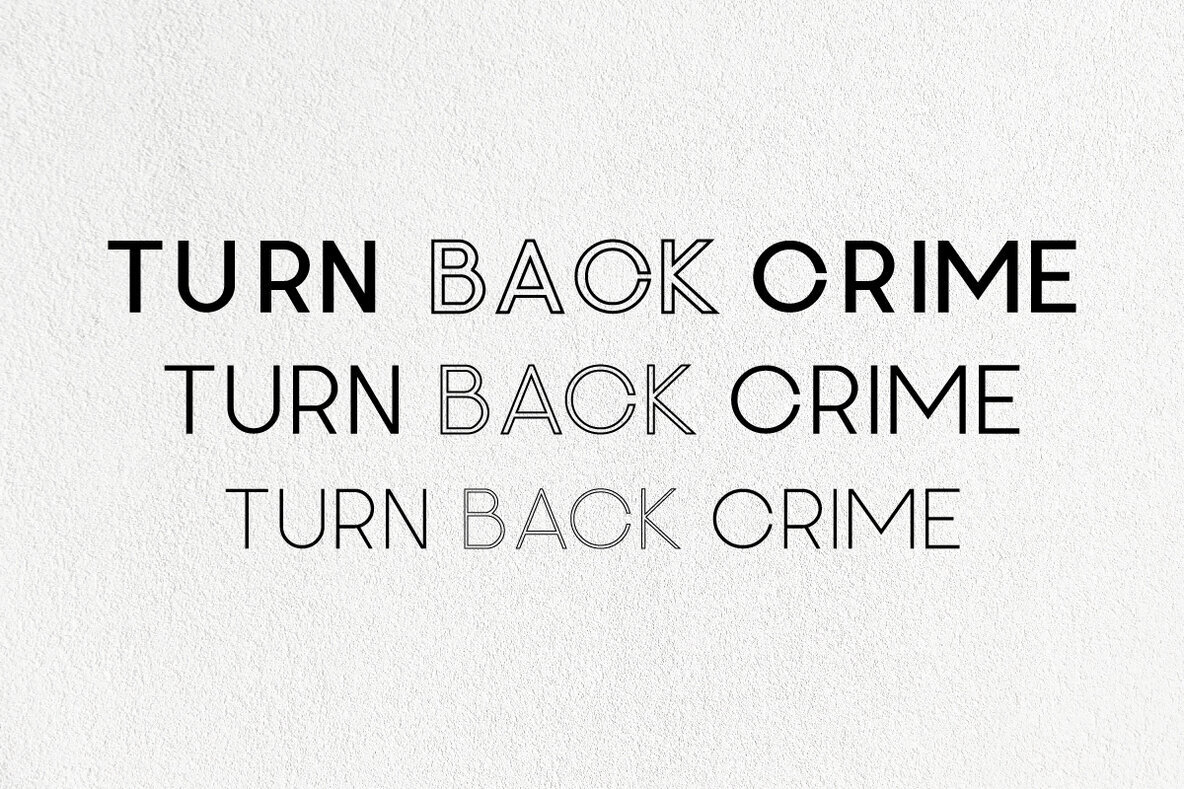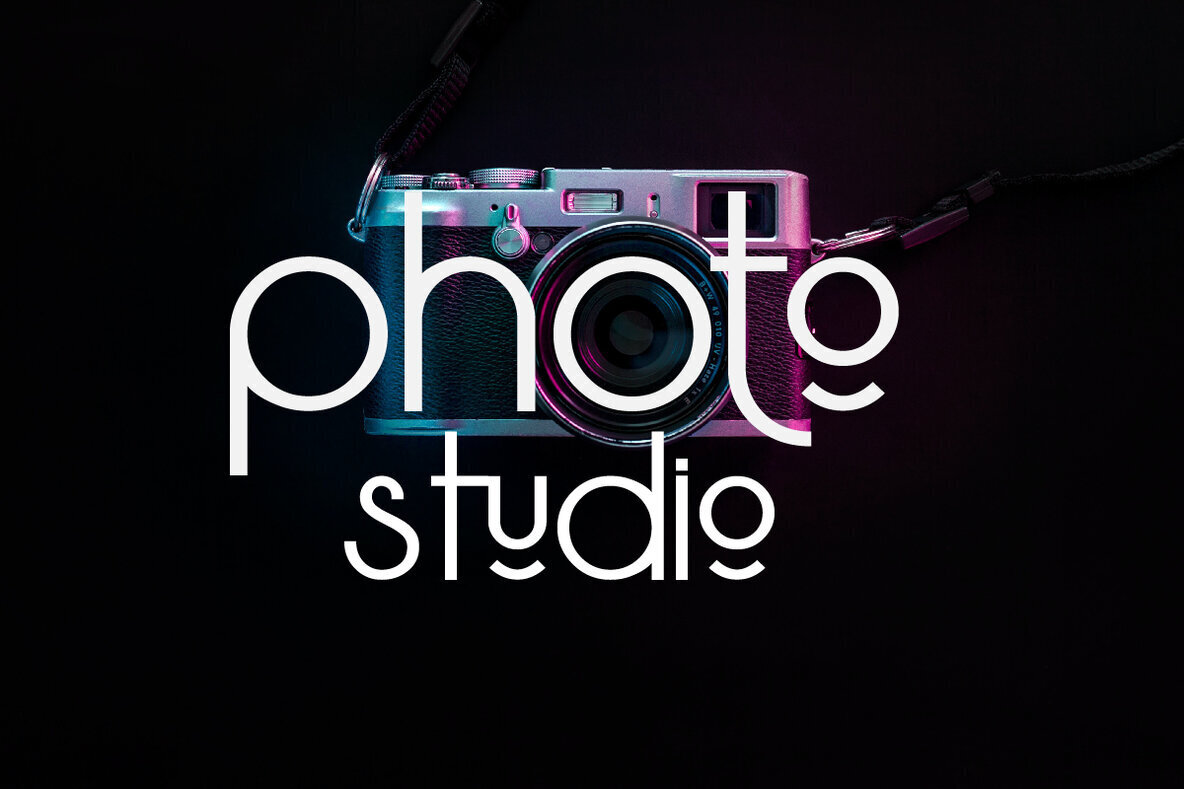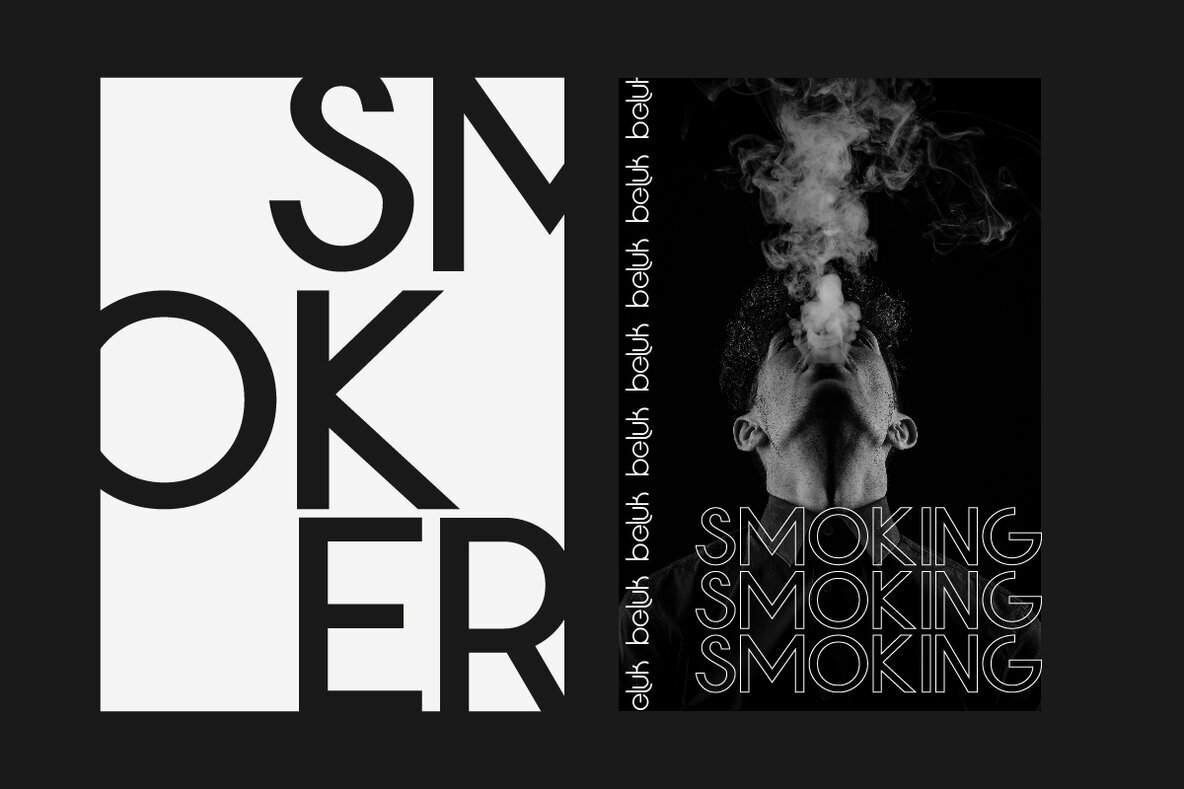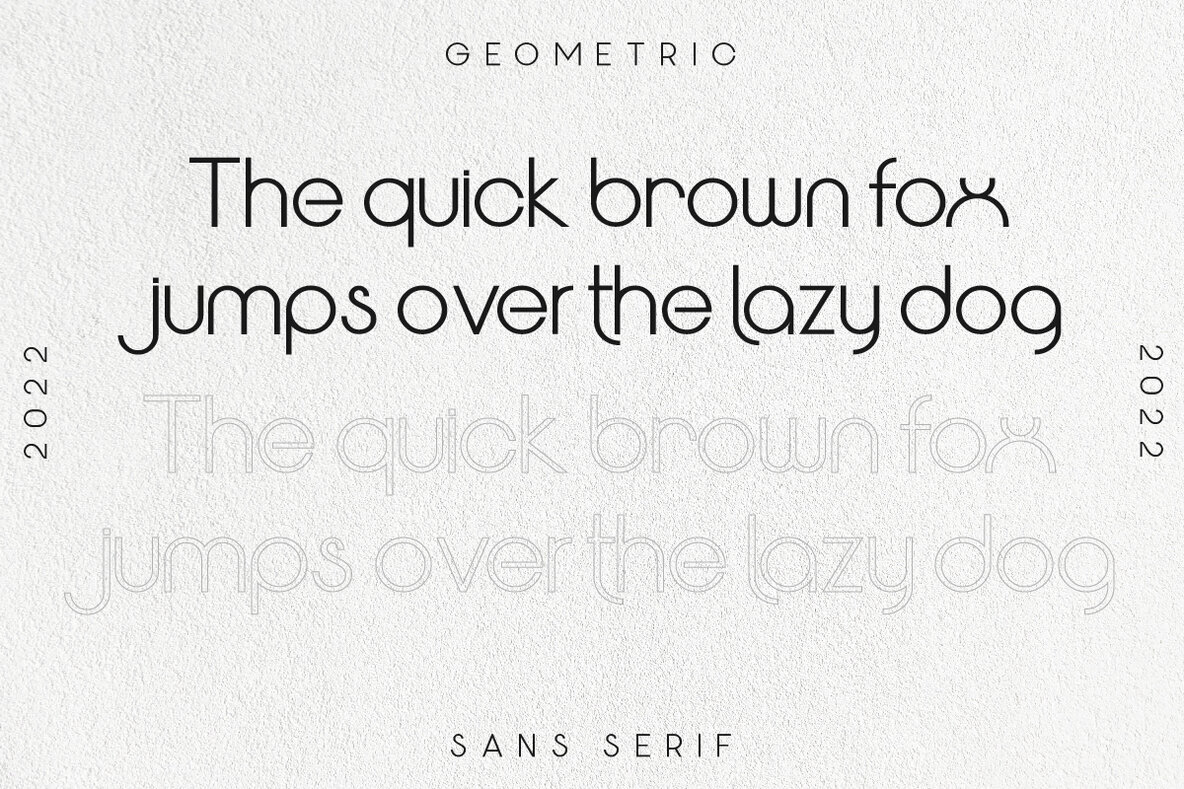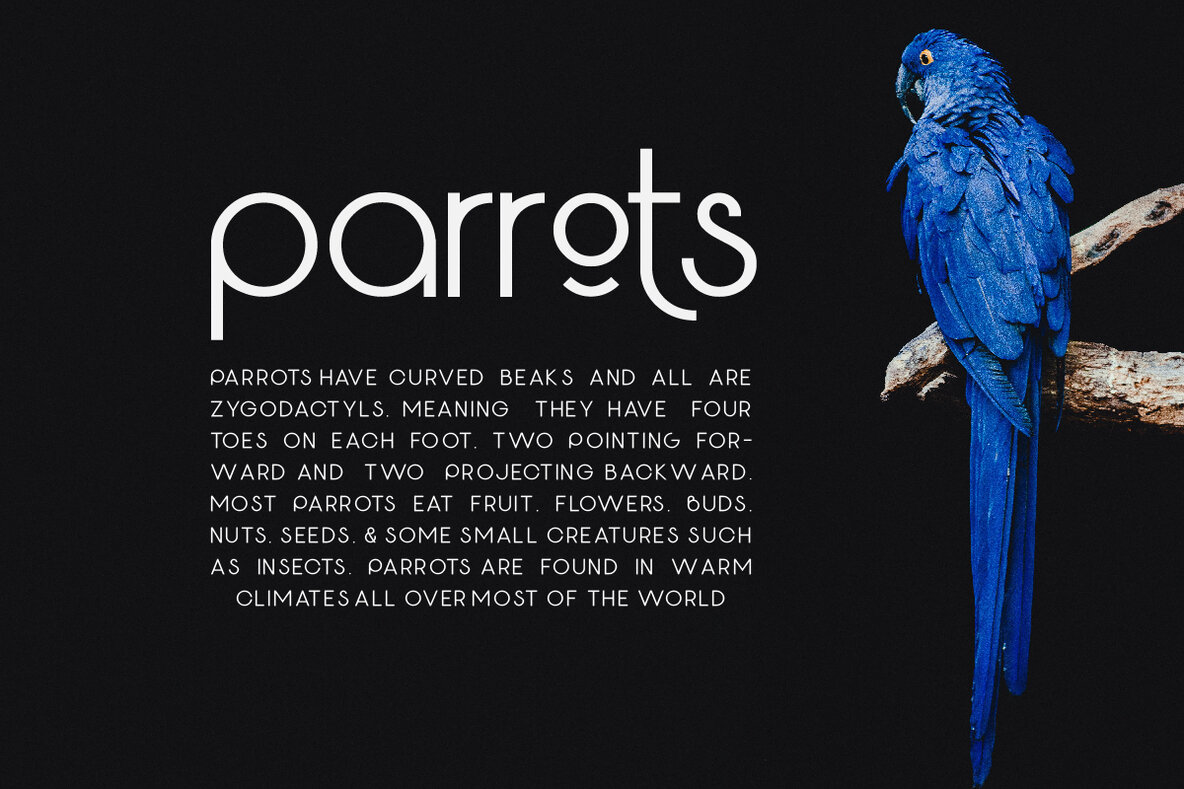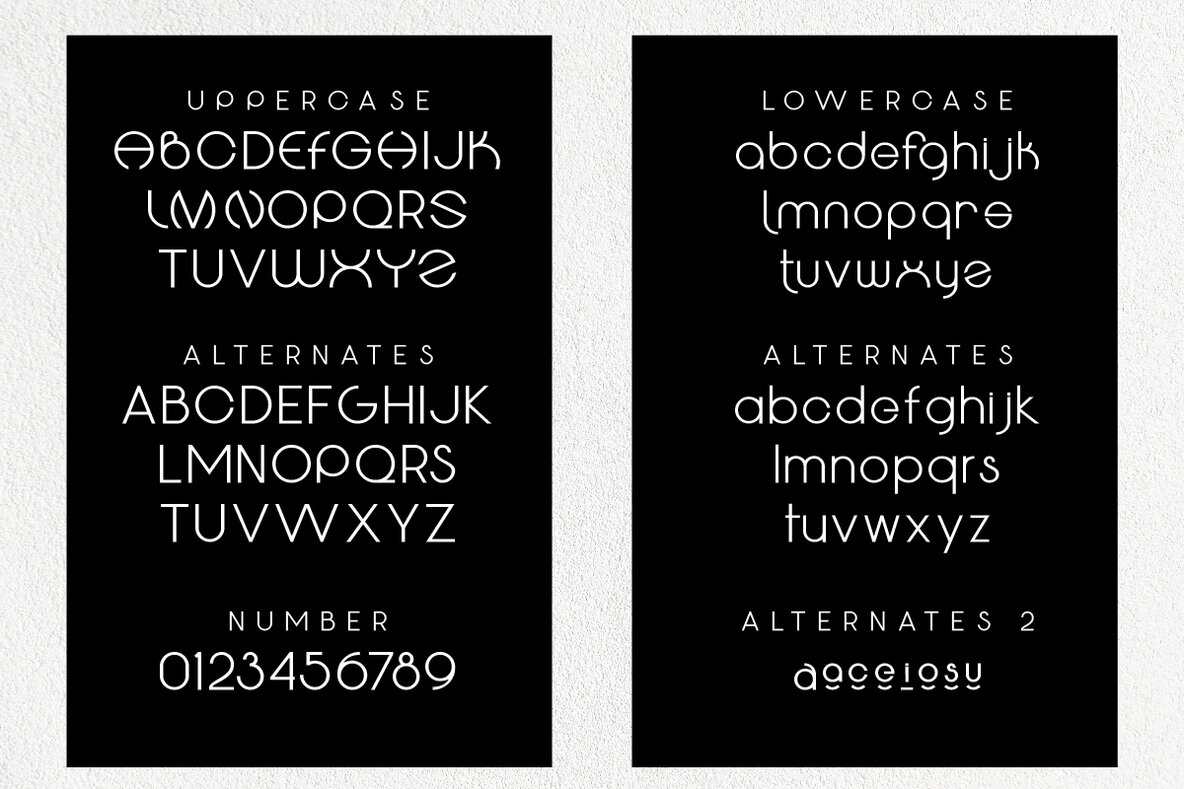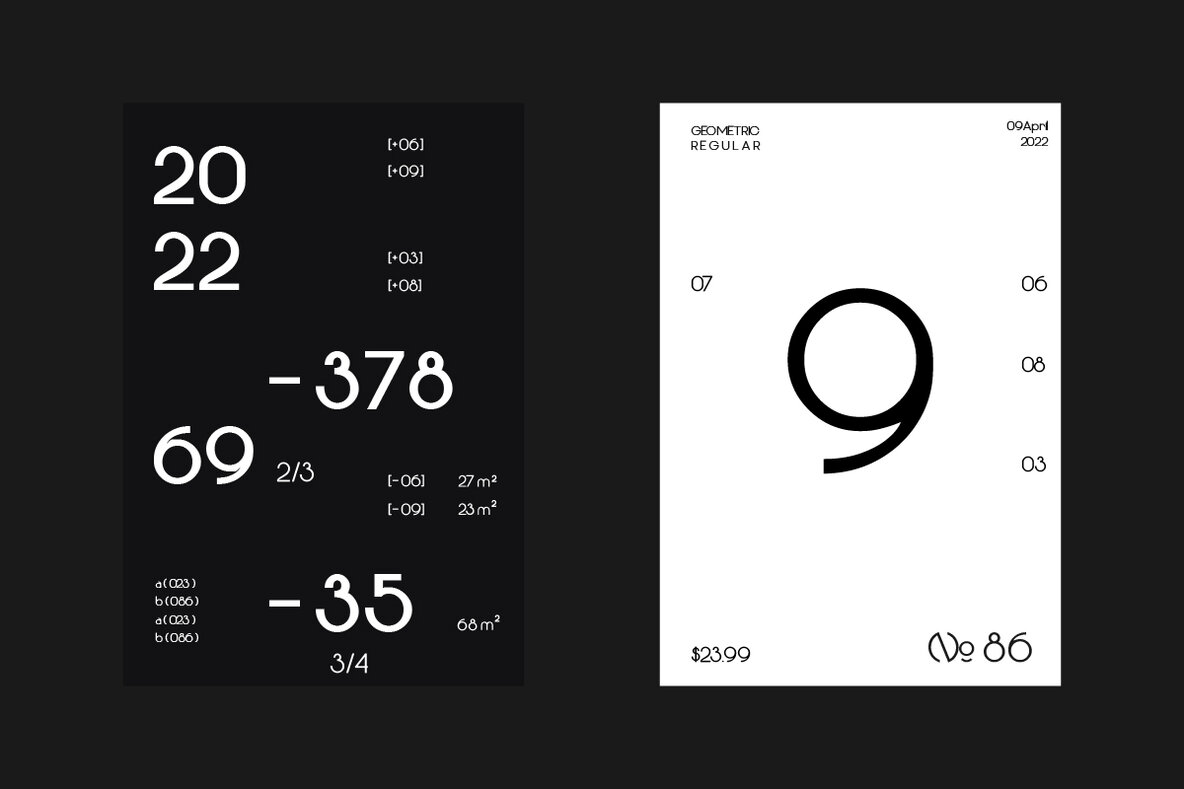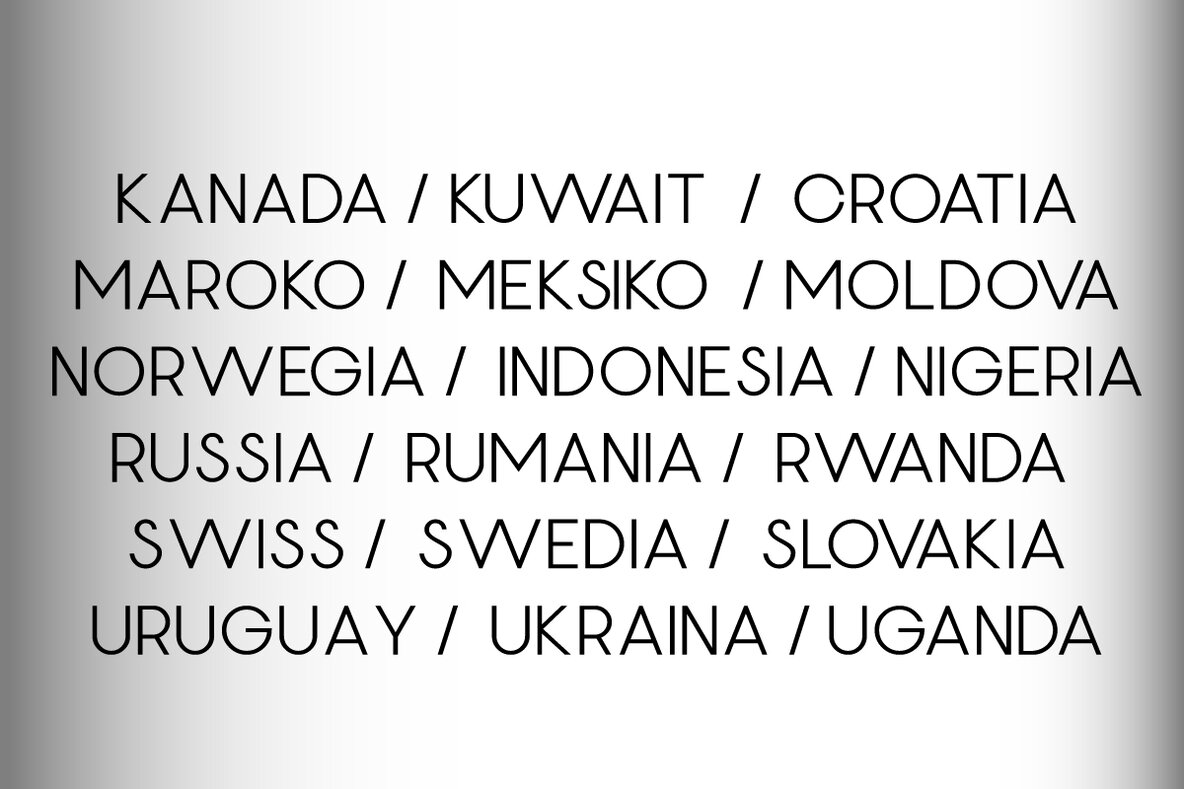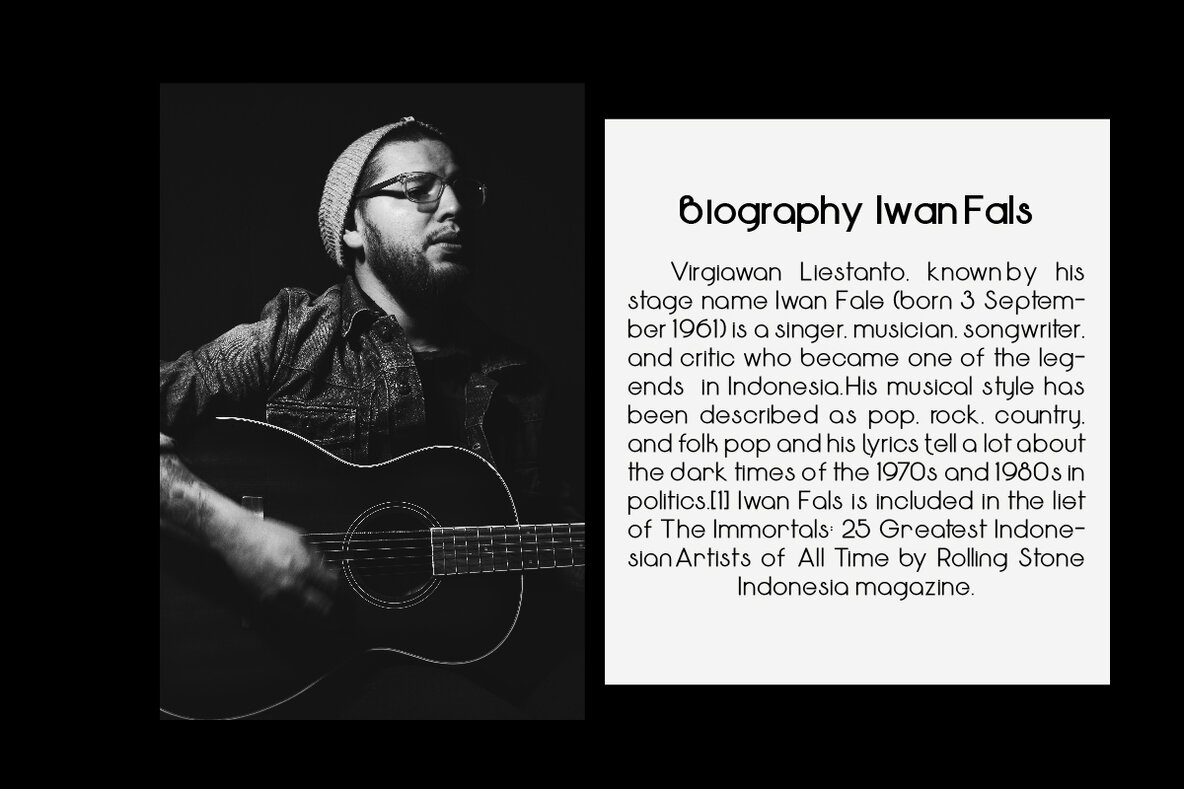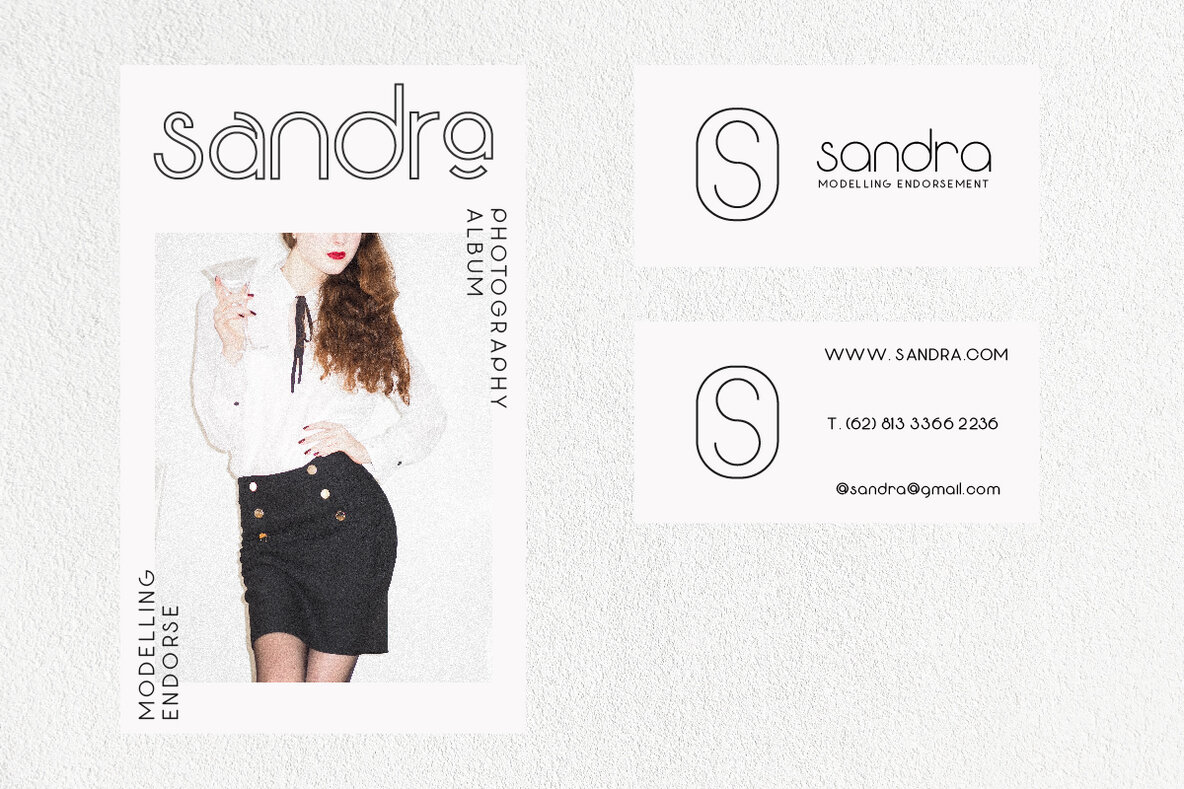
Geotype Font
Geotype, designed by Nur Rohman, presents a typeface elegantly inspired by the simplicity of circle shapes. Defined by crisp edges and modern design elements, it achieves optimal legibility without overwhelming the scene. Geotype stands out with its unique lowercase characters featuring intriguing alternates, making it ideal for those who appreciate understated elegance. With three distinct weights, each offering four different personalities, Geotype provides versatility without compromising its core aesthetic. Whether you're crafting a bold headline or a sleek logo, Geotype seamlessly adapts to your creative vision. Geotype shines in a variety of applications, from branding and logos to headlines and high fashion. Its range of weights empowers designers to explore diverse contexts, making it a fitting choice for tech startups, local events, and more.Geotype: A Typeface Defined by Modern Simplicity